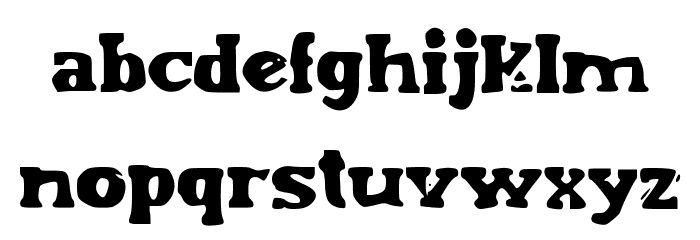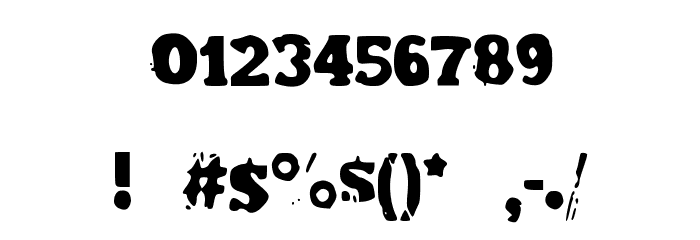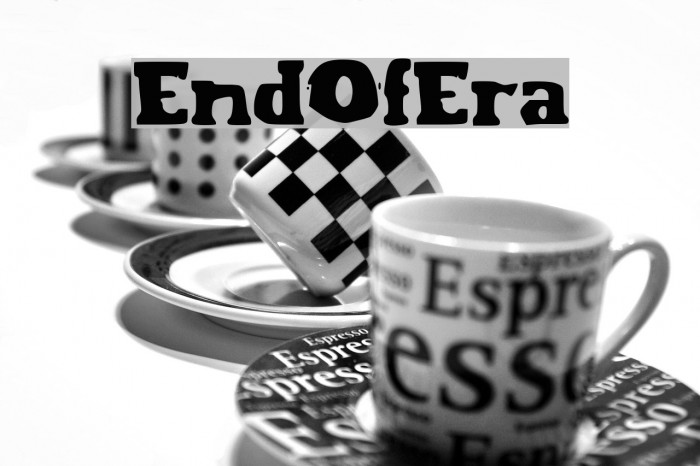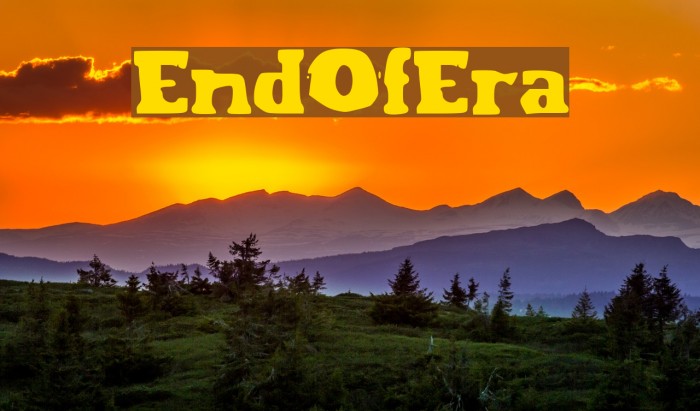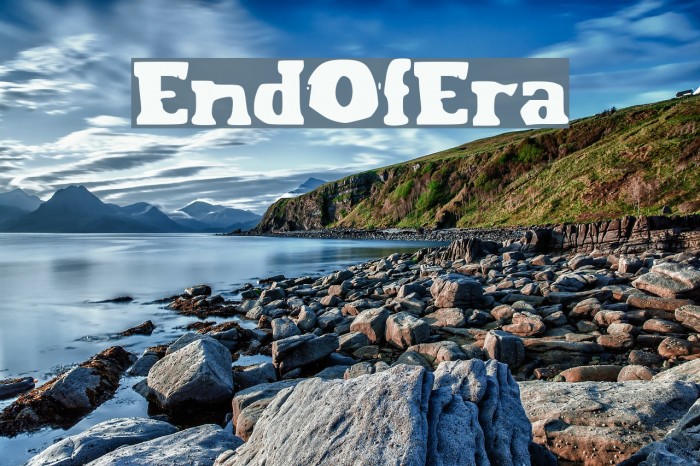
EndOfEra Font
This font exhibits a bold and decorative style with a strong presence. The characters are characterized by a rugged, distressed appearance, giving them a vintage and worn-out feel. The uppercase letters are particularly striking, with unique cutouts and irregular edges that add to the font's distinctive look. The lowercase letters maintain this theme, offering a cohesive design throughout. The numbers and special characters follow the same aesthetic, ensuring consistency across all glyphs. This font is ideal for projects that require a bold statement or a retro, grunge-inspired look.
A bold, decorative font with a rugged, vintage appearance.
- Proposed Projects: Ideal for posters, album covers, vintage-themed designs, and branding that requires a bold, eye-catching typeface.
- Overall Style: Vintage, Decorative